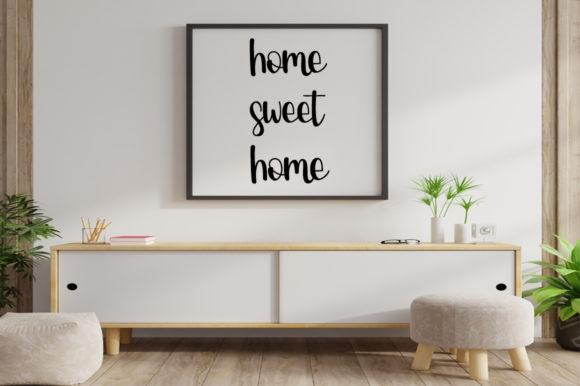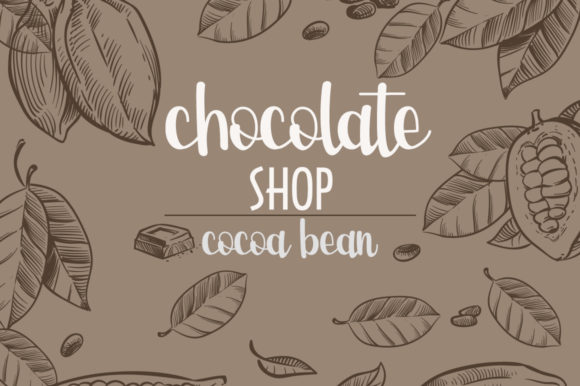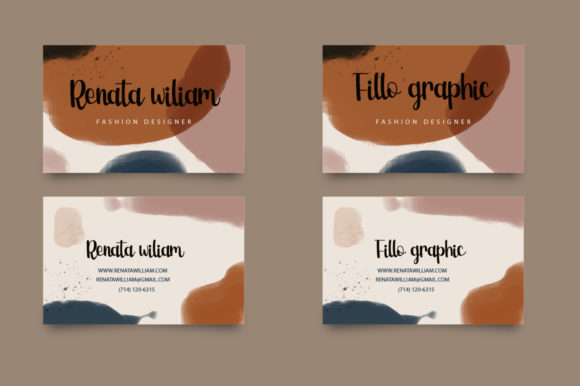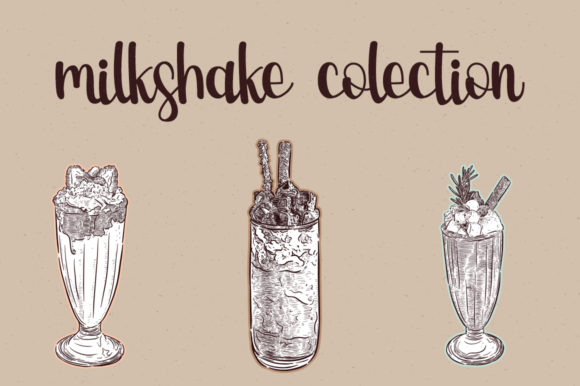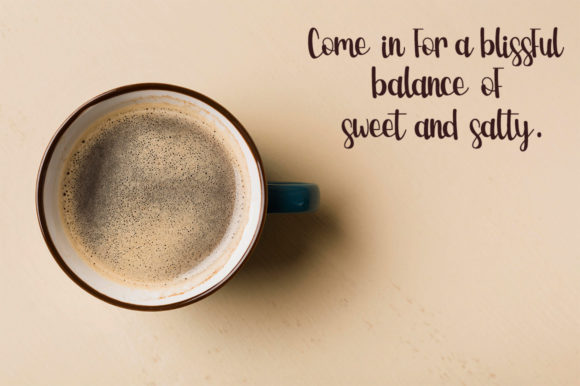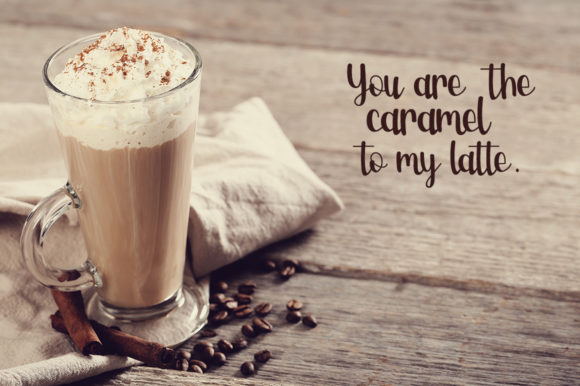
The Sweet Charm of Caramello Font
Do you remember that moment when you first laid eyes on a beautifully handwritten font, and it instantly sparked a wave of creative ideas in your mind? For designers, this moment is a treasure, and Caramello Font is one such treasure that’s sure to capture your heart.
Caramello Font is a flowing handwritten font that exudes elegance and sophistication, making it perfect for your favorite projects. With its distinct and timeless style, it’s no wonder that designers fall in love with it. Whether you’re working on a romantic wedding invitation or a vintage-inspired poster, Caramello Font is the perfect companion to bring your design to life.
As a valuable addition to any designer’s toolkit, Caramello Font offers a unique blend of style and versatility, allowing you to create spectacular designs that leave a lasting impression. So, why not give Caramello Font a try and discover the sweet charm of this beautiful font for yourself?
Caramello Font Key Features
- Font Family: Caramello is a modern script font designed by Carol van Zyl.
- Unique Characteristics: Caramello features elegant, flowing connections between letters and a soft, rounded edge, making it ideal for invitations, signage, and other creative applications.
Caramello Font Review
Overall, I think the Caramello Font is a solid choice for designers looking for a unique and playful font. ✨ It’s perfect for creating eye-catching headlines and adding a touch of whimsy to your designs. The font’s rounded edges and cursive feel make it ideal for children’s books, food packaging, and other projects that require a friendly and approachable tone.
- ✨ Unique and playful design: The Caramello Font is sure to stand out in any design project.
- ✨ Friendly and approachable tone: Perfect for projects that require a warm and welcoming feel.
- ✨ Highly legible: The font is easy to read, even at small sizes.
- ⚠️ Limited versatility: The Caramello Font is best suited for playful and whimsical projects, and may not be the best choice for more formal or professional designs.
- ⚠️ May be too ornate: The font’s cursive feel and rounded edges can make it difficult to read at very small sizes or in tight spaces.
Overall, I’d give the Caramello Font 4 out of 5 stars. It’s a great choice for designers looking for a fun and playful font, but may not be the best choice for more formal or professional projects.
Tips for Getting the Most Out of Caramello Font
- Use it for headings and titles to add a touch of elegance.
- Combine it with other fonts to create a unique and eye-catching design.
Alternatives to Caramello Font for Designers
Pacifico is a beautiful script font perfect for adding a touch of elegance to your designs. It’s ideal for use in wedding invitations, branding, and any project that requires a sophisticated and romantic feel.
Compared to Caramello Font, Pacifico has a more refined and cursive feel, making it suitable for projects that require a more polished look.
Great Vibes is a modern script font that’s perfect for creating a fun and playful atmosphere in your designs. It’s ideal for use in advertising, social media, and any project that requires a lighthearted and energetic feel.
Compared to Caramello Font, Great Vibes has a more casual and relaxed feel, making it suitable for projects that require a more approachable and youthful tone.
Alex Brush is a elegant script font that’s perfect for adding a touch of sophistication to your designs. It’s ideal for use in branding, logos, and any project that requires a refined and luxurious feel.
Compared to Caramello Font, Alex Brush has a more refined and calligraphic feel, making it suitable for projects that require a more high-end and exclusive tone.
Dancing Script is a beautiful and elegant script font that’s perfect for adding a touch of whimsy to your designs. It’s ideal for use in wedding invitations, branding, and any project that requires a sophisticated and playful feel.